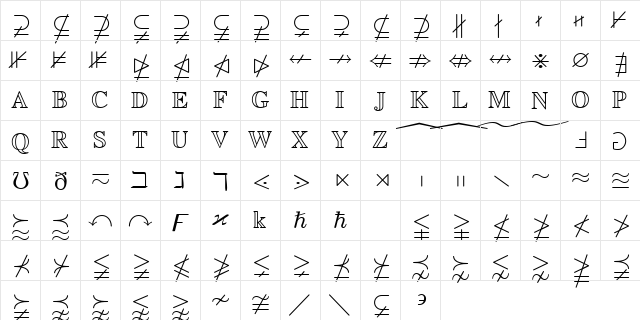
msbm9 Regular Font Preview
msbm9 Regular
msbm9 Regular Font Details
Design Context for msbm9 Typeface
msbm9 is a composed and adaptable typeface that performs quietly and consistently across a wide range of design contexts.